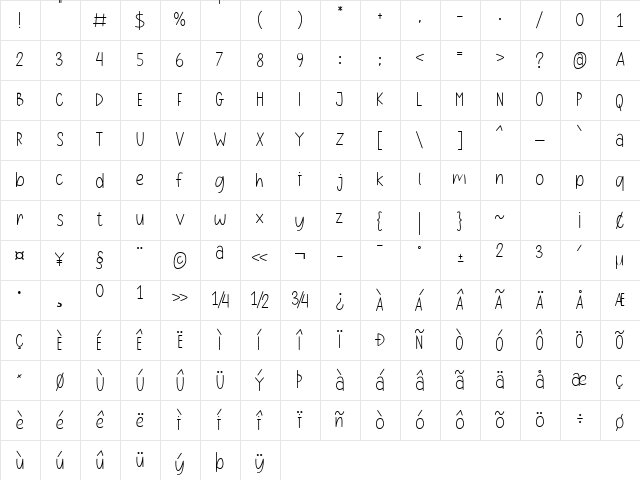
Daisy Dream Regular Free Font
Daisy Dream Regular
Designer: Heru Utama Putra
Design Context for Daisy Dream
Daisy Dream is a composed and adaptable typeface that performs quietly and consistently across a wide range of design contexts.